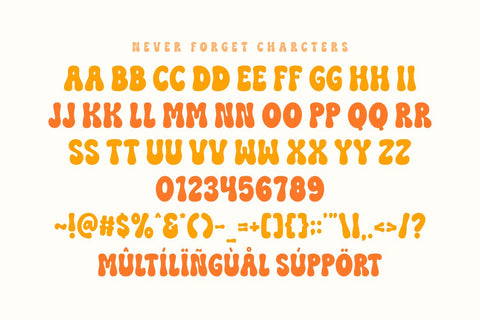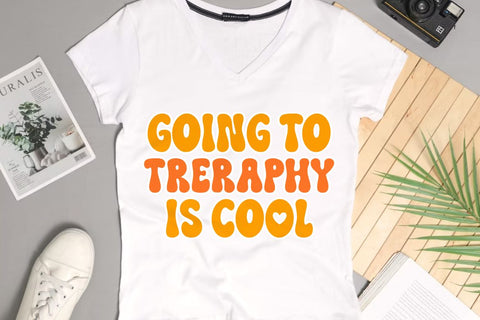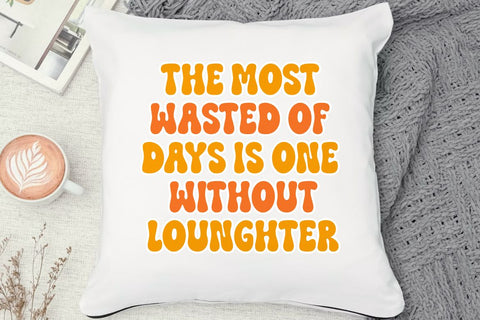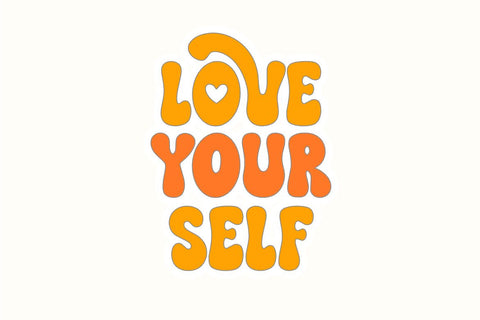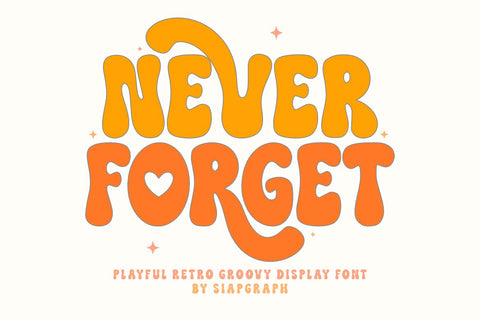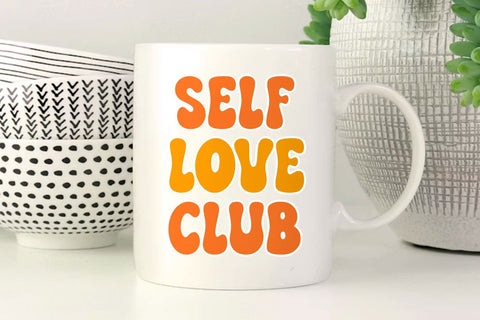
Never Forget - Retro Groovy Font
Never forget is a playful retro groovy display font designed to capture the nostalgic, carefree spirit of the 70s with a modern, affectionate touch. Featuring chunky, wavy letterforms and a charming heart accent integrated into the character design, this typeface brings an energetic and loving vibe to any project. Its clean and substantial construction is specifically optimized for the crafting community, ensuring a seamless and frustration-free experience for vinyl cutting, sublimation, and high-quality digital printing.
Perfect for: creating high-impact SVG cut files, retro-themed t-shirts, vibrant stickers, personalized party invitations, event branding, nursery wall art, and trendy social media graphics. Whether you are a professional Print on Demand (POD) seller or working on a unique DIY gift, this font provides the bold readability and whimsical personality to make your designs pop.
Great for holiday themes such as Valentine's Day, Anniversaries, Birthdays, and Summer celebrations, adding a nostalgic, heartfelt, and groovy personality to all your seasonal designs!